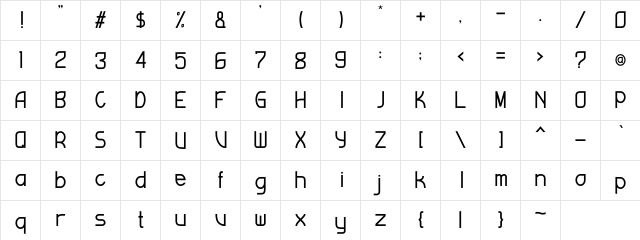
Cavalery Regular
Design Context for Cavalery Typeface
Cavalery takes a measured approach to typography — its balanced proportions and neutral character make it a reliable workhorse for both digital and print work.